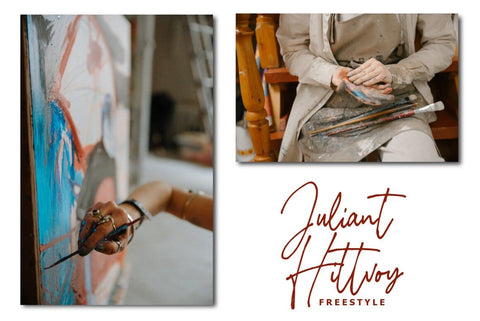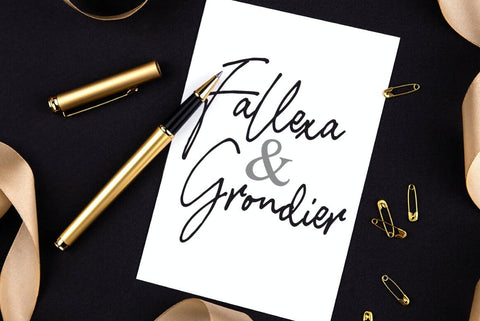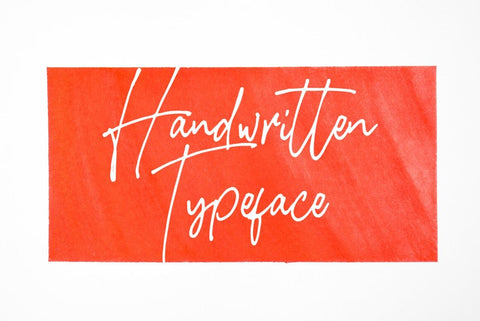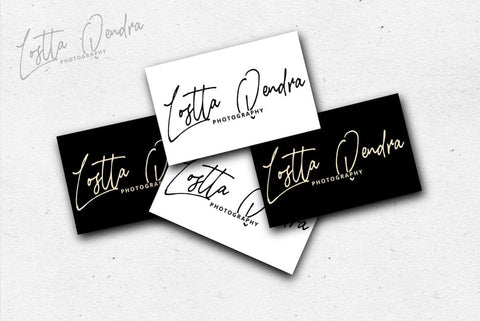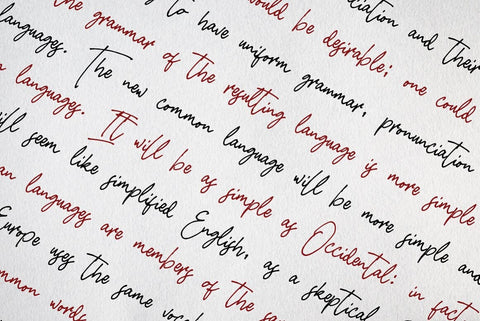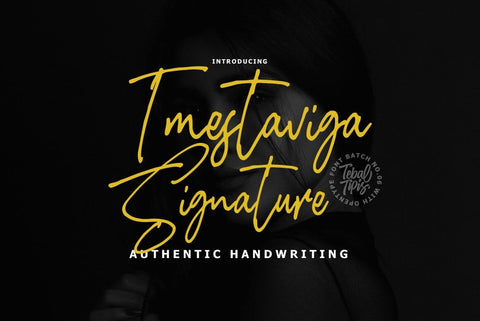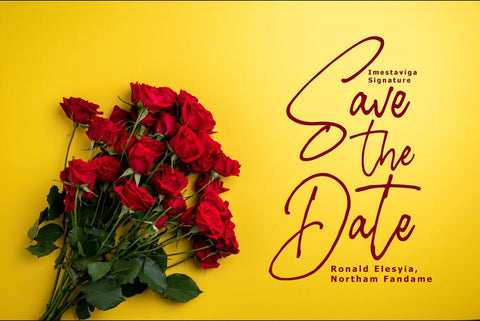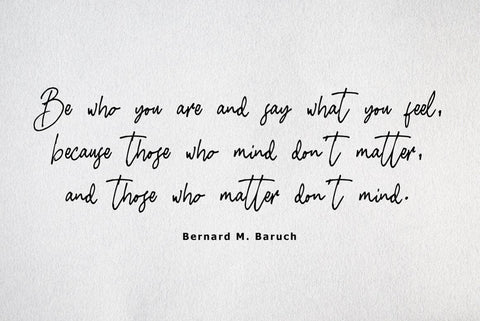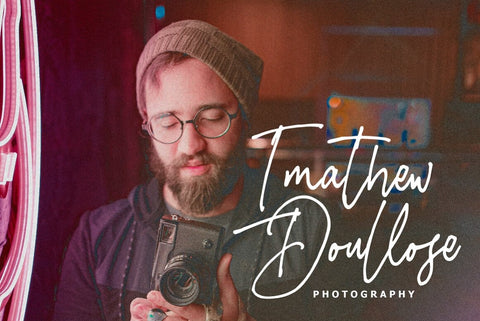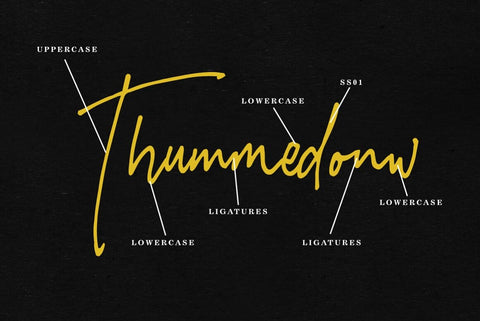
Imestaviga Signature Typeface
Imestaviga Signature with a handmade calligraphy style, decorative characters and a dancing baseline! So beautiful on invitation like greeting cards, branding materials, business cards, quotes, posters, and more!!
Imestaviga Signature come with 200+ glyphs. The alternative characters were divided into several Open Type features such as Swash, Stylistic Sets, Stylistic Alternates, and Ligature. The Open Type features can be accessed by using Open Type savvy programs such as Adobe Illustrator, Adobe InDesign, Adobe Photoshop Corel Draw X version, And Microsoft Word. And this Font has given PUA unicode (specially coded fonts). so that all the alternate characters can easily be accessed in full by a craftsman or designer.